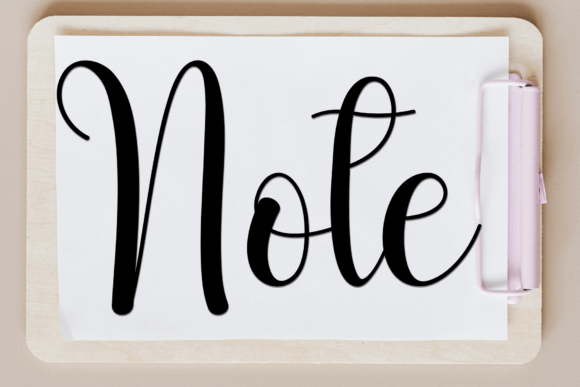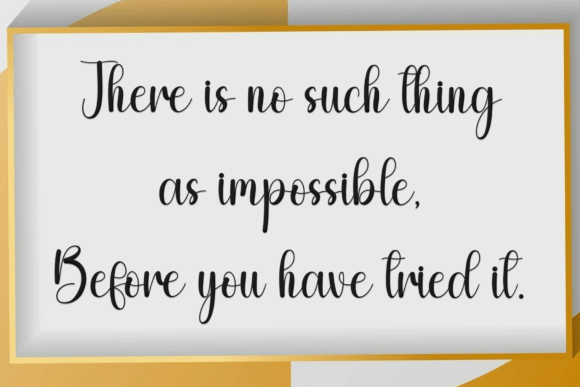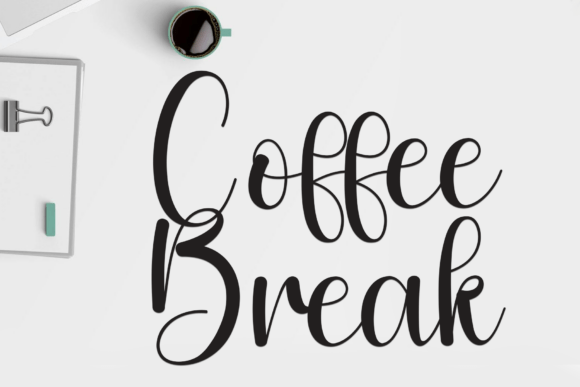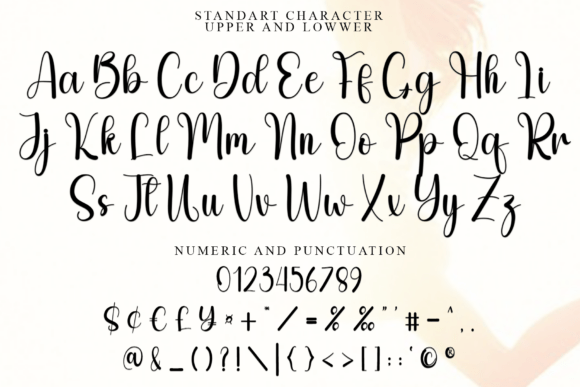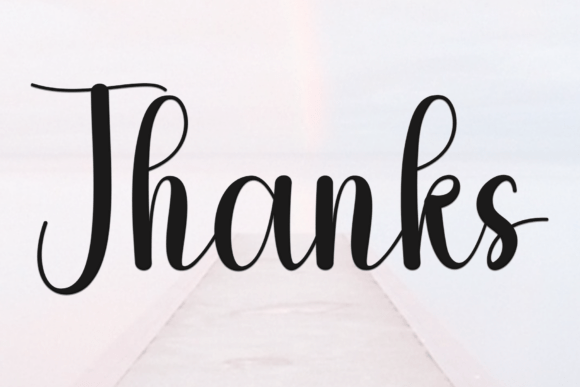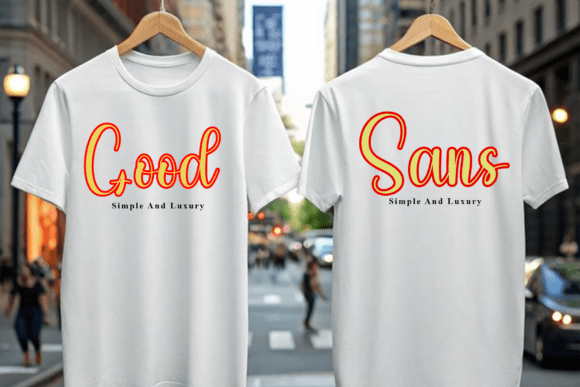
Introducing Cuties Font: The Ultimate Holiday Typeface for Your Festive Designs
The holiday season is upon us, and what better way to get into the spirit than with a font that’s as merry and bright as the twinkling lights on your Christmas tree? Look no further than Cuties Font, a festive and whimsical typeface that’s sure to add a touch of enchantment to your designs. In this article, we’ll dive into the magical world of Cuties Font and explore how it can elevate your holiday-themed projects.
A Festive Font that’s Full of Cheer
Cuties Font is a decorative typeface that’s specifically designed to capture the spirit of the holiday season. With its playful and whimsical flair, it’s the perfect addition to any festive design. Whether you’re creating greeting cards, gift tags, or holiday-themed projects, Cuties Font brings a cheerful and nostalgic ambiance to your words. Its unique and eye-catching design is sure to make your creations stand out from the crowd.
Cuties Font is a versatile typeface that’s perfect for designers and crafters alike. Whether you’re a professional graphic designer or a DIY crafter, this font is easy to use and can add a touch of magic to your projects. With its PUA encoding, you can access all of the amazing glyphs and ligatures with ease, making it simple to create stunning designs that will delight your audience.
What Makes Cuties Font So Special?
So, what sets Cuties Font apart from other typefaces? Here are just a few of the features that make it so special:
- Decorative Elements: Cuties Font features a range of decorative elements, including swashes, flourishes, and ligatures, that add a touch of whimsy and flair to your designs.
- PUA Encoding: With PUA encoding, you can access all of the amazing glyphs and ligatures with ease, making it simple to create stunning designs.
- Whimsical Flair: Cuties Font has a playful and whimsical feel that’s perfect for holiday-themed designs.
- Festive Spirit: This font is specifically designed to capture the spirit of the holiday season, making it perfect for Christmas, Hanukkah, or any other winter celebration.
How to Use Cuties Font in Your Designs
Using Cuties Font in your designs is easy! Here are a few tips to get you started:
- Greeting Cards: Add a touch of festive cheer to your holiday greeting cards with Cuties Font.
- Gift Tags: Use Cuties Font to create custom gift tags that are as unique as they are special.
- Holiday-Themed Projects: Whether you’re creating a festive banner, a holiday-themed party invitation, or a seasonal social media graphic, Cuties Font is the perfect addition to your design.
Tips and Tricks for Getting the Most Out of Cuties Font
Here are a few tips and tricks for getting the most out of Cuties Font:
- Experiment with Different Sizes: Cuties Font looks great in a range of sizes, from small and delicate to large and bold.
- Pair it with Other Fonts: Try pairing Cuties Font with other festive fonts to create a unique and eye-catching design.
- Use it with Holiday-Themed Graphics: Cuties Font looks great paired with holiday-themed graphics, such as snowflakes, holly, or Christmas trees.
Cuties Font is a magical and festive typeface that’s perfect for adding a touch of enchantment to your holiday designs. With its decorative elements, whimsical flair, and PUA encoding, it’s the perfect addition to any festive project. Whether you’re a designer or a crafter, Cuties Font is sure to bring a smile to your face and a touch of holiday cheer to your creations. So why wait? Get your hands on Cuties Font today and let the magic begin!